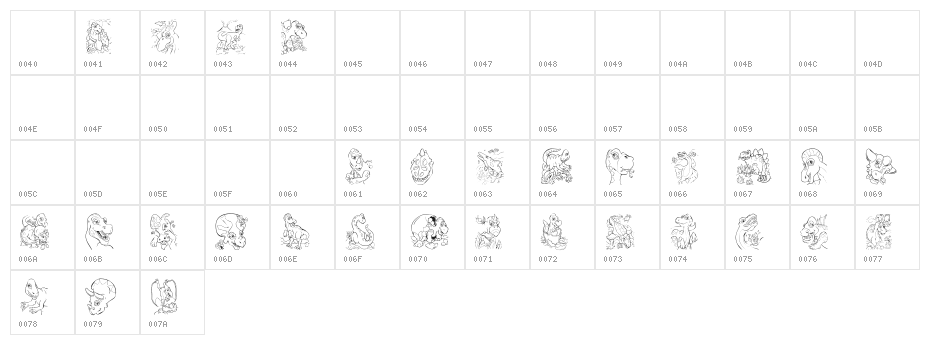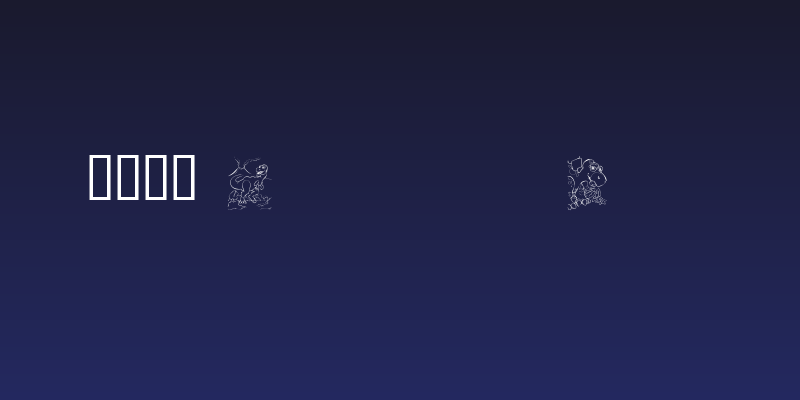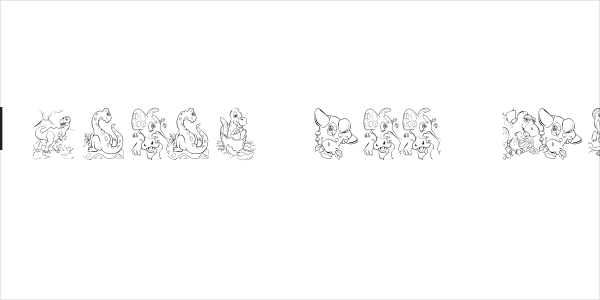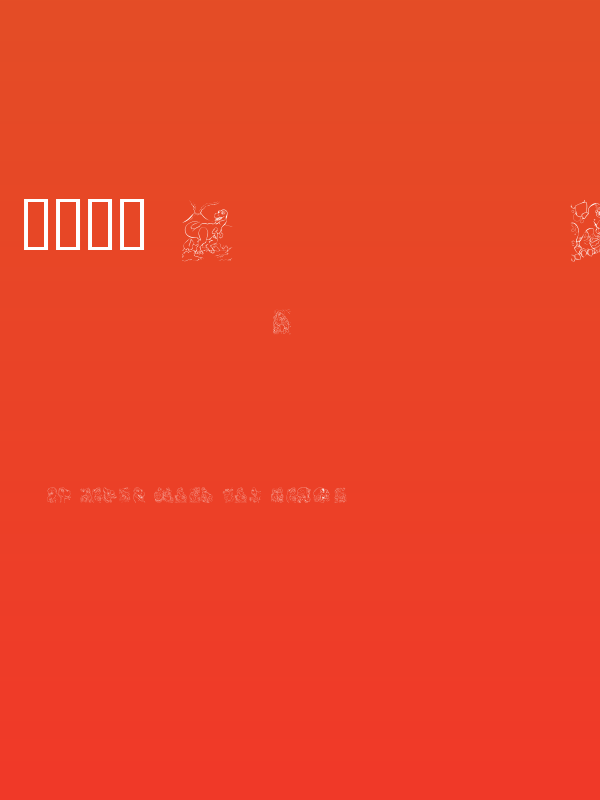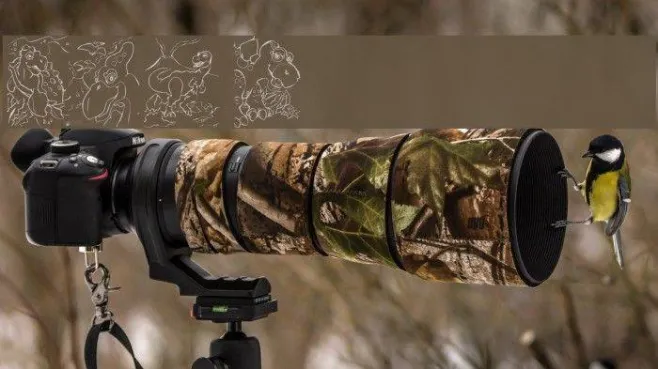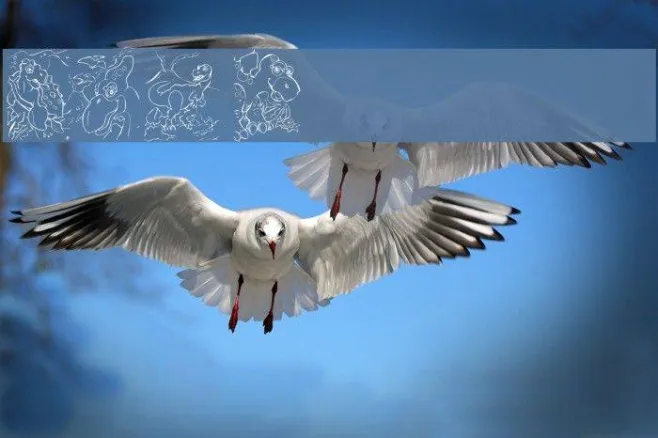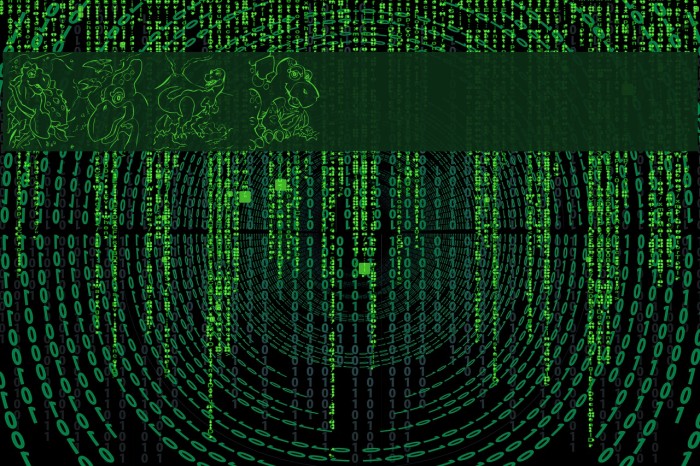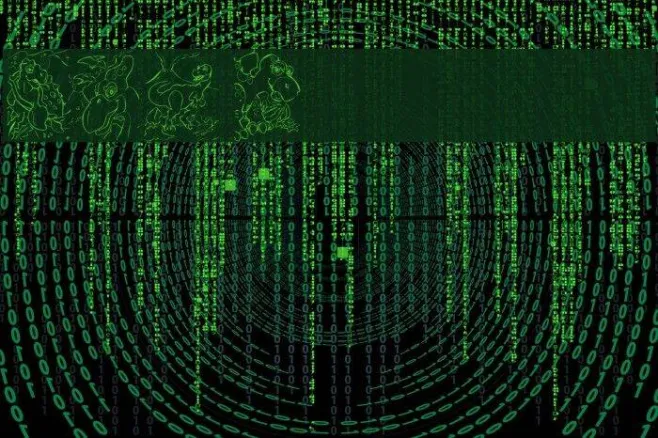
101! Color Fill DinoZ Font
101! Color Fill DinoZ Description
A playful, decorative font featuring detailed cartoon dinosaur illustrations for each character, with expressive and whimsical line art. The glyphs are unique drawings rather than traditional letterforms, making it suitable for creative, child-focused projects.
| Overall Style | Playful, Whimsical, Decorative |
| Use Case | Headlines, Logos, Themed graphics, Coloring activities |
| Proposed Projects | Children's books, coloring pages, party invitations, educational materials, themed posters. |